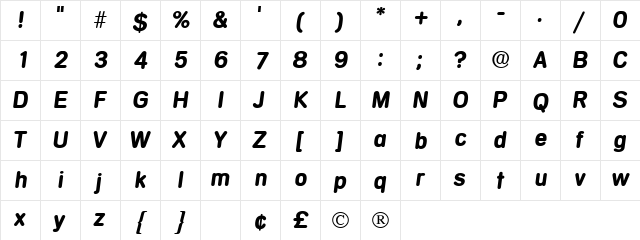
Menta Display SSi Italic
Design Context for Menta Display SSi Typeface
Menta Display SSi is built around its visual character rather than neutral utility — its distinctive forms are designed to make an impression at display sizes. The dynamic lean of this cut emphasises speed and emphasis in any layout.
Font Pairing: Pair with a clean neutral sans-serif for body copy to let Menta Display SSi's character lead without overwhelming the composition.
Pro Tip: Use Menta Display SSi exclusively at display sizes — it was designed to be seen, not read at length. Let a neutral companion handle body copy.